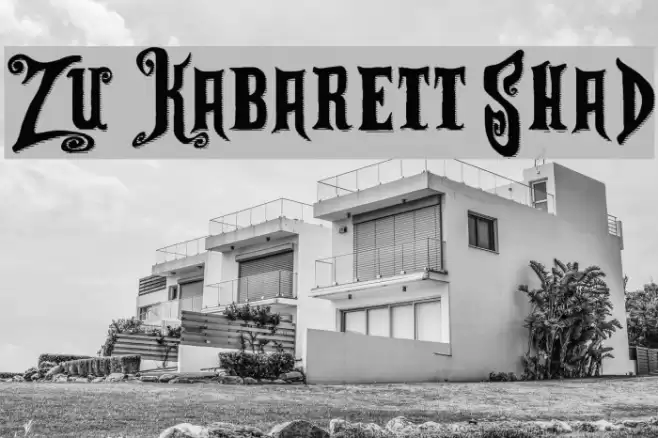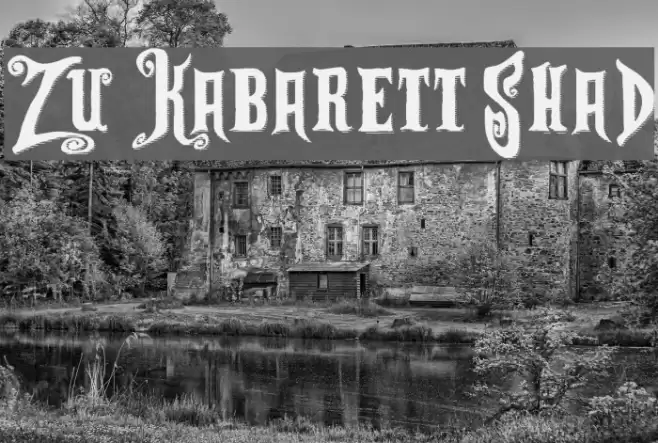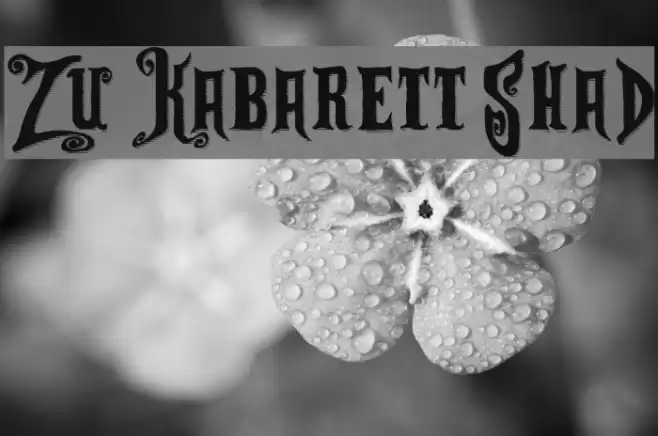
Zu Kabarett Shad Font
Zu Kabarett Shad Description
This font features an elaborate and decorative style, characterized by its ornate and whimsical design elements. Each letter is adorned with intricate curls and flourishes, giving it a theatrical and vintage feel. The uppercase and lowercase letters maintain a consistent decorative theme, with exaggerated serifs and unique embellishments that make each character stand out. The numbers and special characters follow the same ornate style, ensuring a cohesive look across all glyphs. This font is ideal for projects that require a touch of drama and elegance, such as posters, invitations, and theatrical productions.
An ornate and decorative font with theatrical flourishes and vintage charm from Uncategorized fonts.
- Proposed Projects: Ideal for theatrical posters, vintage-themed invitations, and decorative signage.
- Overall Style: Vintage